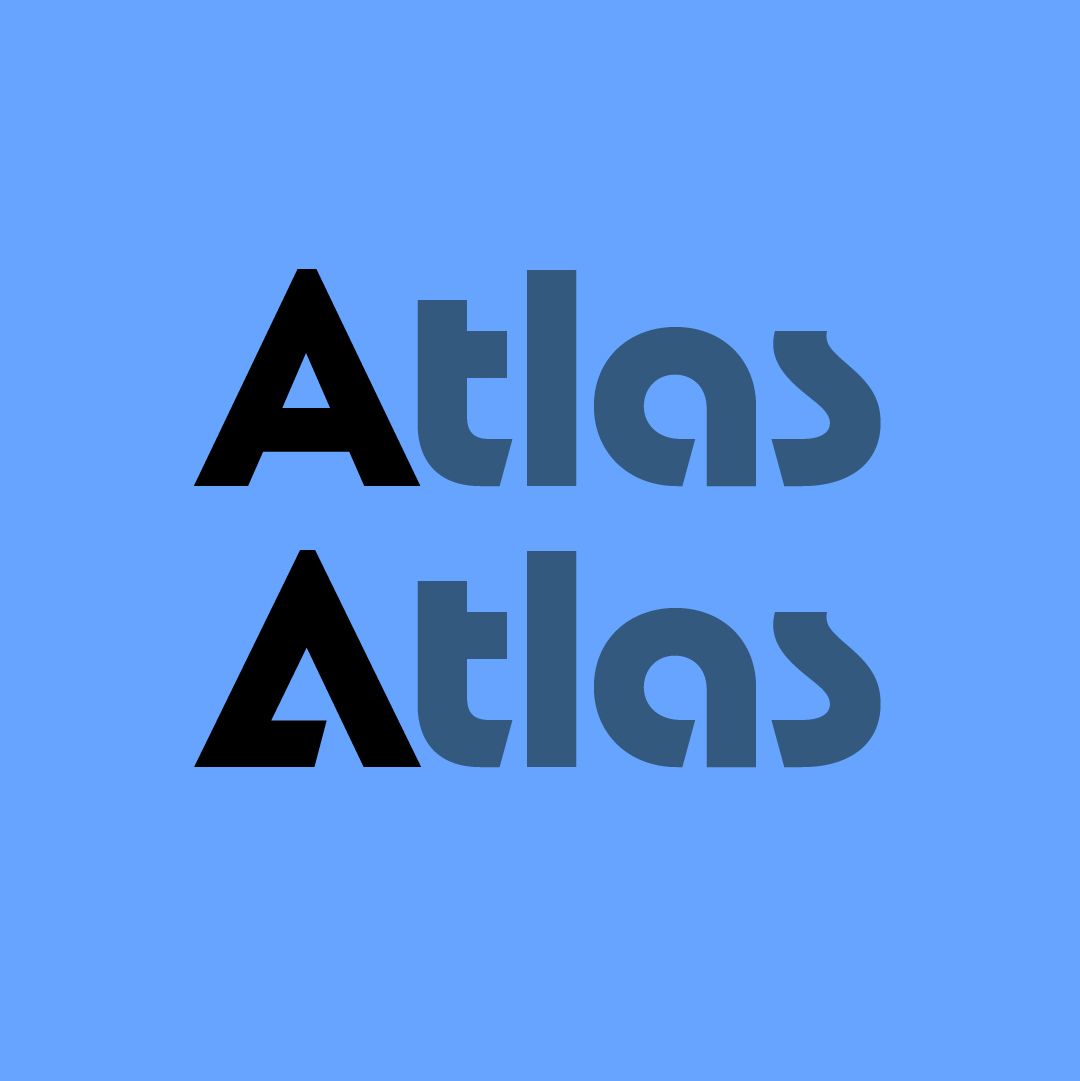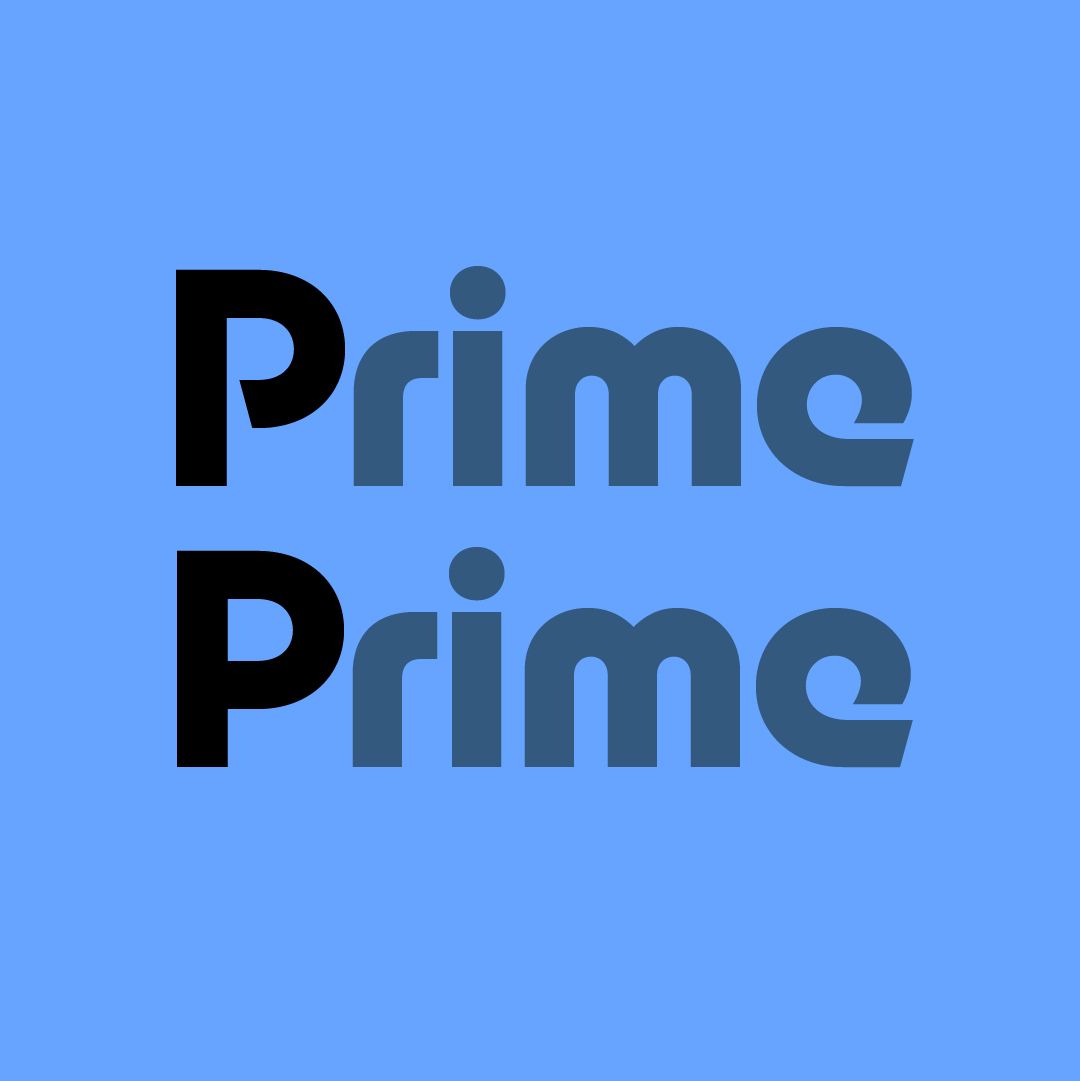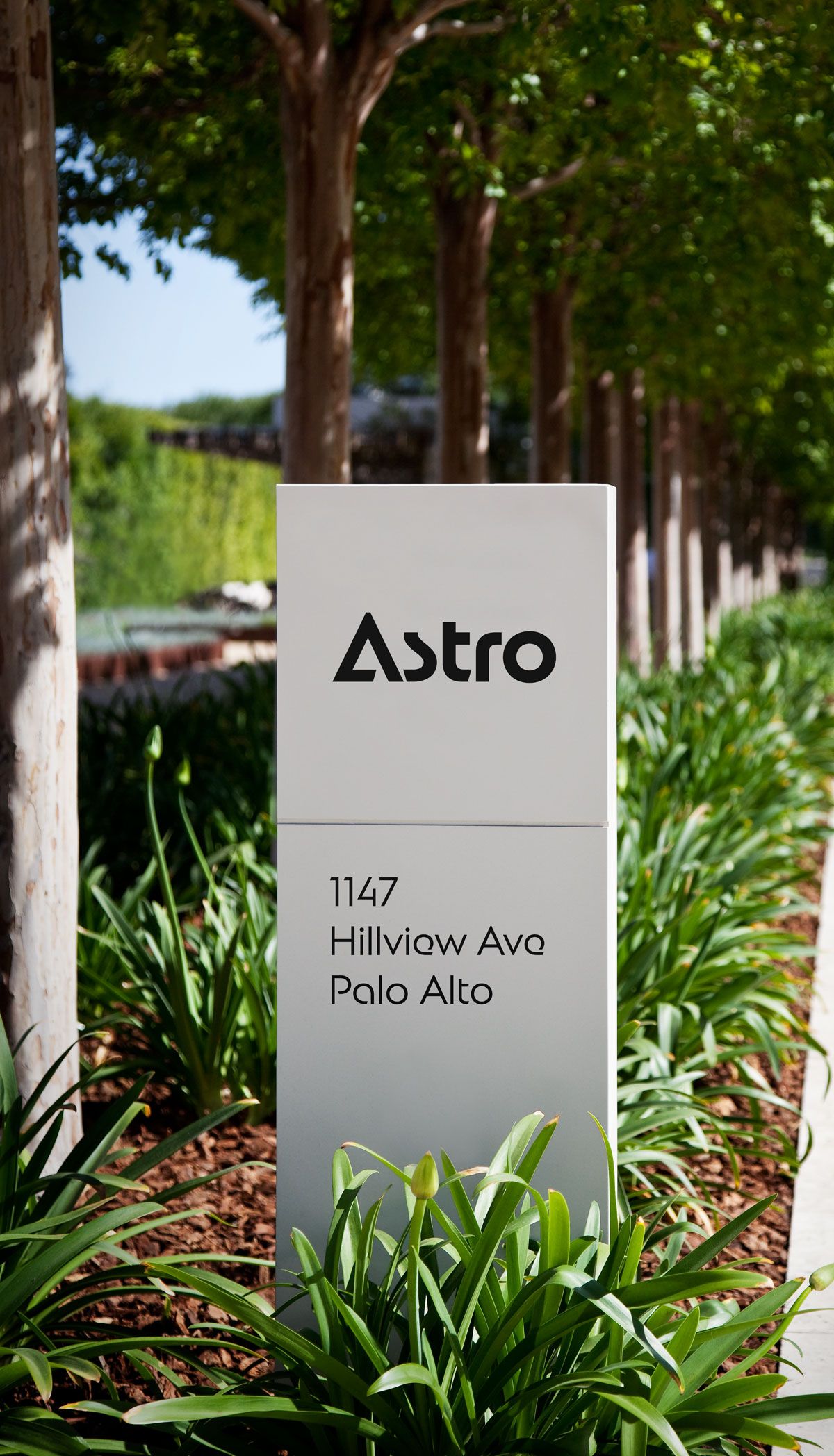
New Astro Font | Retro Geometric Display Typeface
New Astro
New Astro is a bold, compact display font family drawn from retro geometric lettering and the rounded logo culture of the 1980s and 1990s. It has the instant familiarity of toy packaging, entertainment brands and popular graphic design, but is redrawn with a cleaner rhythm for contemporary use.
The family is especially suited to logos, packaging, titles, short headlines and expressive brand typography. Alternate letters and stylistic sets allow the voice to shift from playful and nostalgic to sharper, more structured and graphic.
New Astro began with the compact, rounded character of ITC Bauhaus and the visual memory of brands such as Playmobil. The design keeps that friendly graphic warmth, then sharpens the rhythm with slanted cuts, a more minimal e, a compact s, and a wide range of alternate forms.
New Astro and New Astro Soft
New Astro has two related voices. The main family is sharper, more compact and more graphic. New Astro Soft restores more of the rounded, friendly quality of the original inspiration, making it useful where the tone needs to feel warmer, more playful or more approachable.
New Astro includes five weights: Light, Regular, Medium, SemiBold and Bold. New Astro Soft is available in the same five-weight range. Both families include alternate letters and stylistic sets for changing the tone of logos, headlines and display typography.
Stylistic sets give New Astro a flexible voice. Alternate letters can make the family feel more rounded, more futuristic, more logo-like or more severe, depending on the brand context.
Stylistic Set 'Closed B D P'
Stylistic Set 'Delta A'